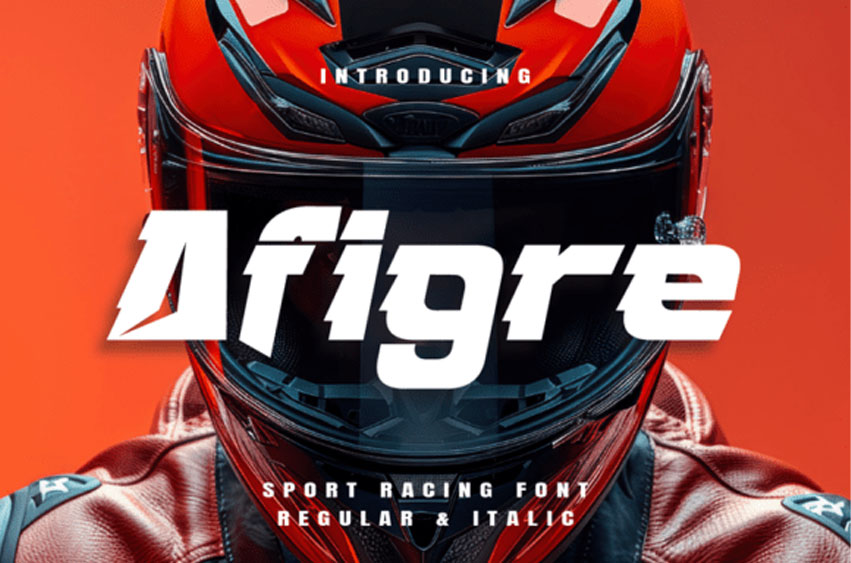
Afigre Racing Font
Afigre Racing Font Ignite your designs with Afigre, a stalwart display font distinguished by its assertive and dynamic appeal. Taking cues from the thrill and velocity of the motorsports realm, Afigre integrates crisp incisions, leaning angles, and streamlined structures to ensure a commanding typographic impact. From racing posters and automobile branding to esports visuals and apparel crafting, this font infuses a rapid and forward-facing ambiance into any project.
The strength of Afigre lies in its robust, lively letterforms that wear distinctively razor-sharp edges to deliver high impact. It offers versatility in your designs with two styles to choose from – Regular and Italic. With its future-facing, masculine aura, Afigre is a tour de force in speed-centric industries, each character echoing the rhythm of stylized slashes and a perpetual forward momentum. Trust Afigre to steer your designs at full speed!